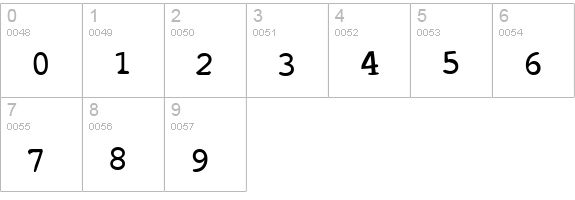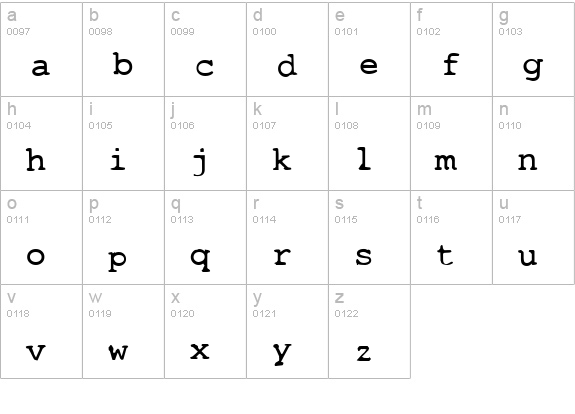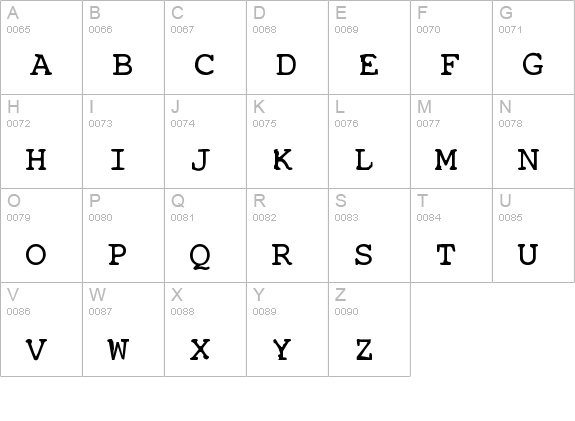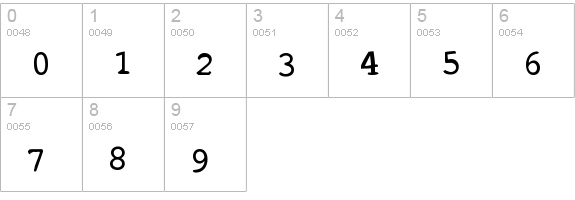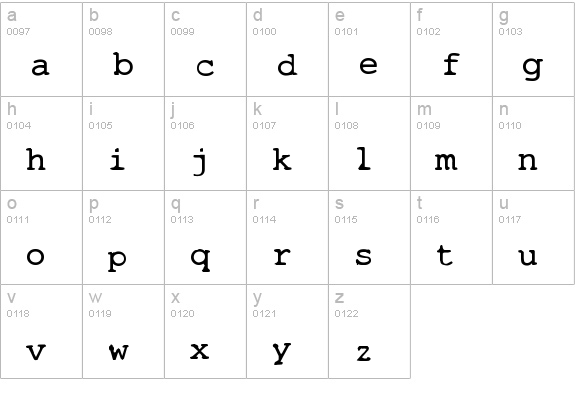
STALKER2 Font Details
Introducing the captivating and enigmatic STALKER2 font! Embodied with an air of mystery and intrigue, this font is sure to capture the attention of anyone seeking a unique and captivating typography experience. With its bold and edgy yet refined design, STALKER2 effortlessly combines the essence of danger and curiosity, making it a perfect choice for a wide range of projects. This font possesses a mesmerizing aura that draws the viewer into its hypnotic embrace. Its stylized letters exude an enigmatic energy, conveying a sense of adventure and exploration. Whether used in branding, posters, book covers, or any creative endeavor, STALKER2 font will undoubtedly leave a lasting impression on your audience. And the best part? STALKER2 font is freely available to download at FontsMarket.com! With just a few clicks, you can easily enhance your design projects with this remarkable font, adding an element of intrigue and excitement. Its versatility enables you to explore various creative avenues, allowing your imagination to run wild. Unleash your design potential and infuse your projects with the captivating essence of STALKER2 font. Experience the thrill of freely expressing your creativity with this awe-inspiring typographic masterpiece, readily available at FontsMarket.com. Embrace the unknown, embrace the adventure, and bring your designs to life with STALKER2 font.